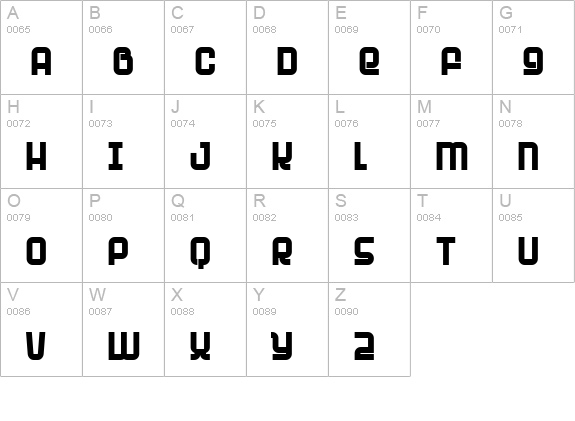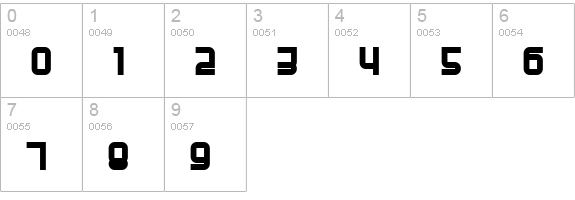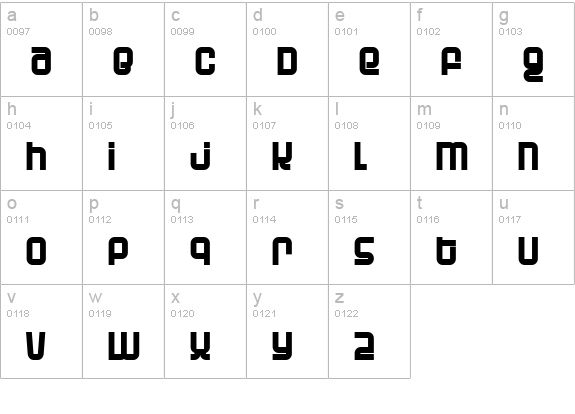
Introducing Planet Planet font, a stunning typeface that will take your designs to new horizons! This versatile font is the perfect balance between modernity and elegance, making it suitable for a wide range of projects. Whether you're designing a logo, creating a sleek website, or crafting eye-catching posters, Planet Planet font is sure to make a lasting impression. What sets Planet Planet font apart is not only its exceptional design but also its accessibility. We are thrilled to announce that this extraordinary font is available for free download at FontsMarket.com. Yes, you heard it right, absolutely free! We believe that great design should be accessible to all, and that's why we're offering this incredible font for everyone to enjoy. Featuring clean lines, distinct letterforms, and a contemporary feel, Planet Planet font is the epitome of modern sophistication. Its sleek and stylish appearance will effortlessly elevate any project, giving it a professional and polished look. With a wide range of weights and styles available, Planet Planet font offers endless possibilities for creative expression. Whether you prefer a bold and impactful statement or a subtle and refined touch, this font has got you covered. Its versatility allows you to experiment and find the perfect fit for your unique vision. Not only does Planet Planet font deliver exceptional aesthetics, but it also ensures legibility and readability across various platforms. Its carefully crafted letterforms guarantee that your message will be effortlessly conveyed to your audience, no matter the medium. So, why wait? Experience the beauty and versatility of Planet Planet font today! Visit FontsMarket.com to freely download this remarkable typeface and unlock a world of design possibilities. Elevate your projects to new heights with Planet Planet font and let your creativity soar!